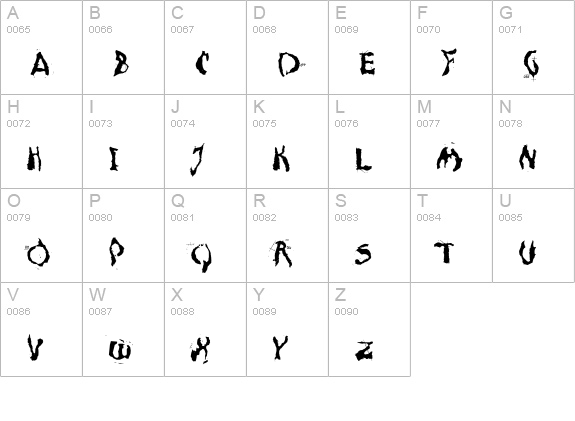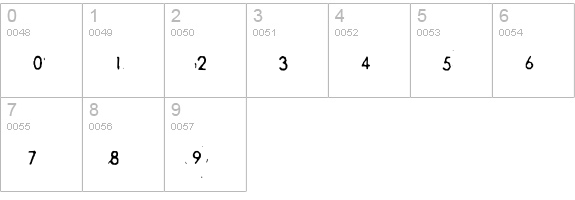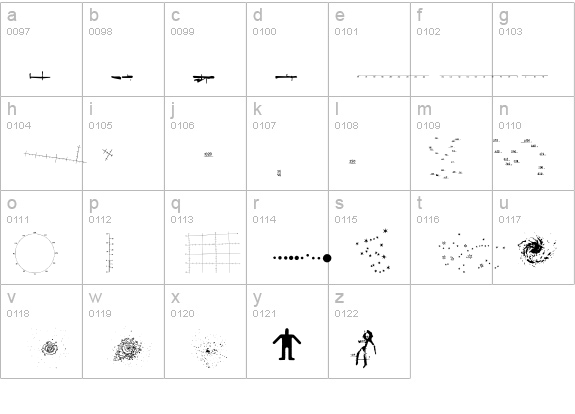
Moonscape Font Details
Moonscape font is a captivating and versatile typeface that exudes a sense of otherworldly beauty. Its unique design features a harmonious blend of elegant curves and bold lines, making it perfect for a wide range of design projects. Whether you're creating a mystical fantasy book cover, a dreamy wedding invitation, or a futuristic branding campaign, Moonscape font will add a touch of enchantment to your work. What's even better is that Moonscape font is completely free to download at FontsMarket.com. This means you can easily access this stunning font and use it in your projects without any cost involved. With its seamless compatibility across various design software and platforms, Moonscape font offers endless creative possibilities for designers, artists, and creators alike. Embrace the magic of Moonscape font and bring your visions to life with its enchanting charm and timeless appeal. Download it today from FontsMarket.com and let your creativity soar to new heights.